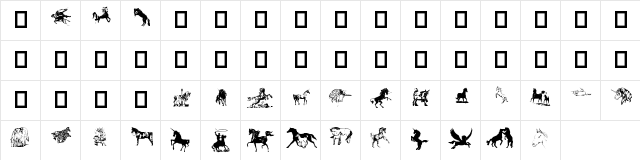
Complete Equestrian by Darrian Extra-expanded glyph index. Displaying only characters natively supported by Equestrian by Darrian Extra-expanded font.
Equestrian by Darrian is a composed and adaptable typeface that performs quietly and consistently across a wide range of design contexts.